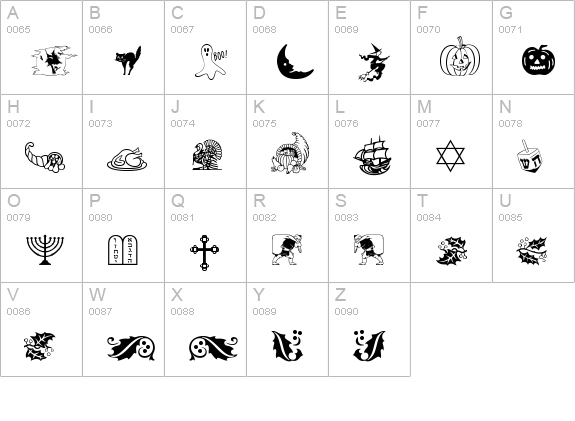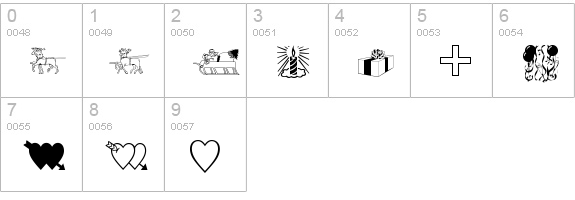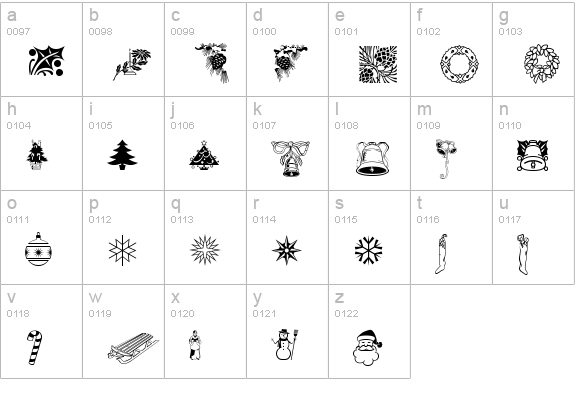
Holiday Pi Font Details
Holiday Pi font is a whimsical and festive typeface perfect for adding a touch of holiday cheer to your designs. With its playful shapes and unique style, this font is sure to stand out and bring a smile to anyone who sees it. Whether you're working on holiday cards, party invitations, or seasonal posters, Holiday Pi font is a great choice to add a fun and festive touch to your projects. Best of all, Holiday Pi font is completely free to download at FontsMarket.com. Simply head to the website and grab this delightful font to add a touch of holiday magic to your designs. Don't miss out on this charming and versatile font that will surely bring joy to your creative projects this holiday season.